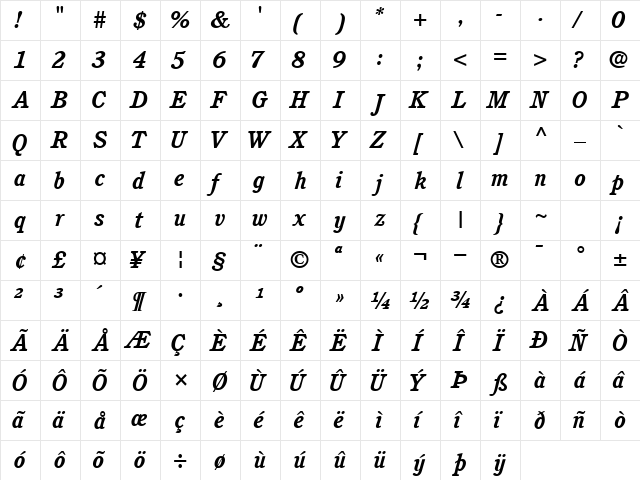
PerspectiveSSK BoldItalic
Design Context for PerspectiveSSK Typeface
PerspectiveSSK is a composed and adaptable typeface that performs quietly and consistently across a wide range of design contexts. The dynamic lean of this cut emphasises speed and emphasis in any layout. The heavy weight commands attention and anchors typographic hierarchies.